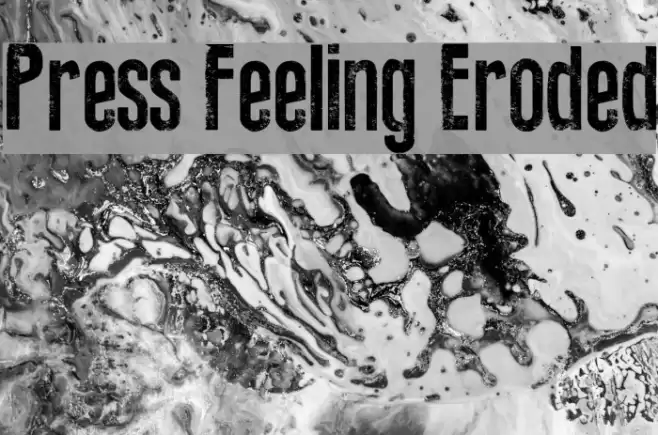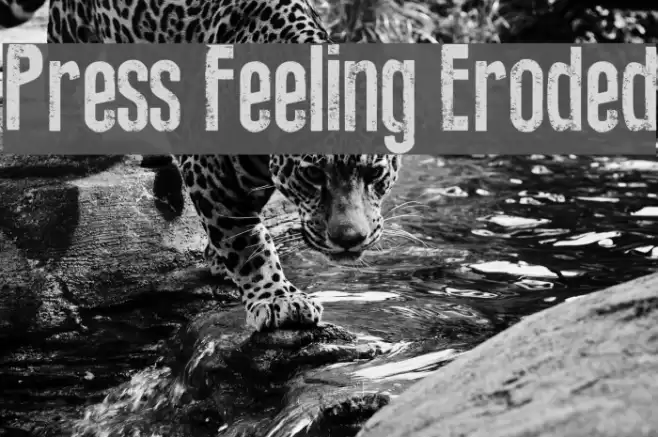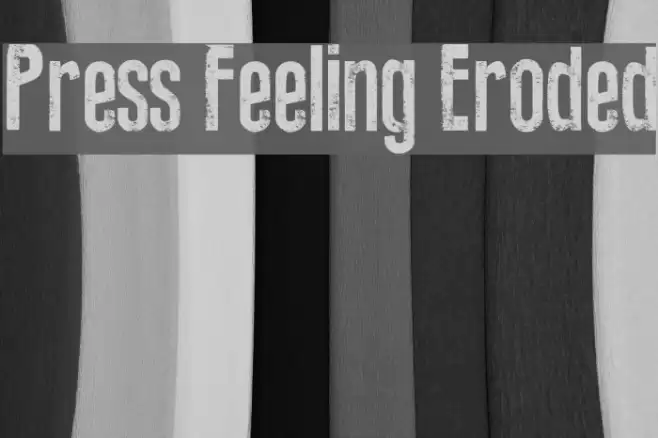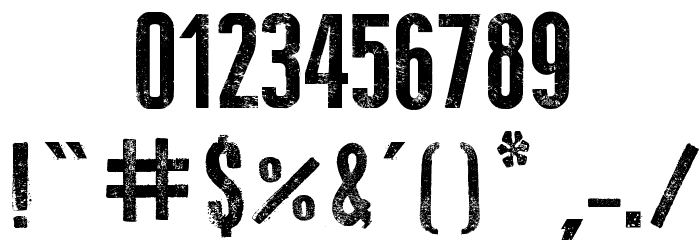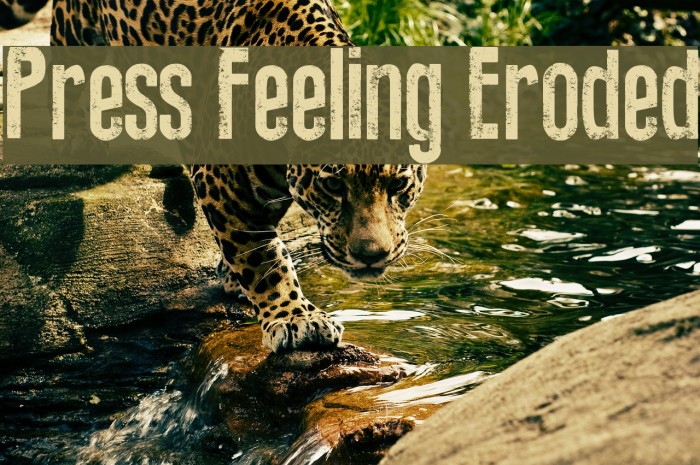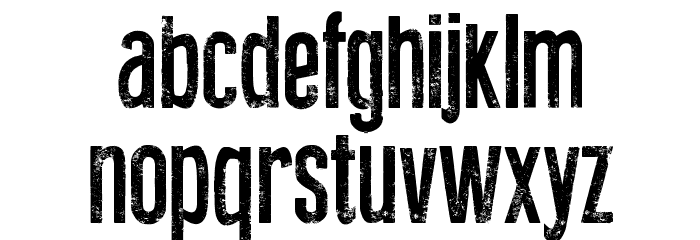
Press Feeling Eroded Font
Press Feeling Eroded Description
This font features a distressed, eroded texture that gives it a rugged and worn appearance. The uppercase and lowercase letters maintain a consistent height and width, providing a uniform look despite the textured effect. The numbers and special characters follow the same design, ensuring cohesion across all elements. The font's style is bold and impactful, making it suitable for projects that require a strong visual presence. Its unique texture adds character and depth, making it ideal for designs that aim to convey a sense of age, history, or authenticity.
A bold, distressed font with an eroded texture for a rugged look from Distorted Eroded fonts.
- Proposed Projects: Ideal for vintage posters, album covers, branding for rustic or industrial-themed businesses, and any design needing a strong, textured aesthetic.
- Overall Style: Vintage